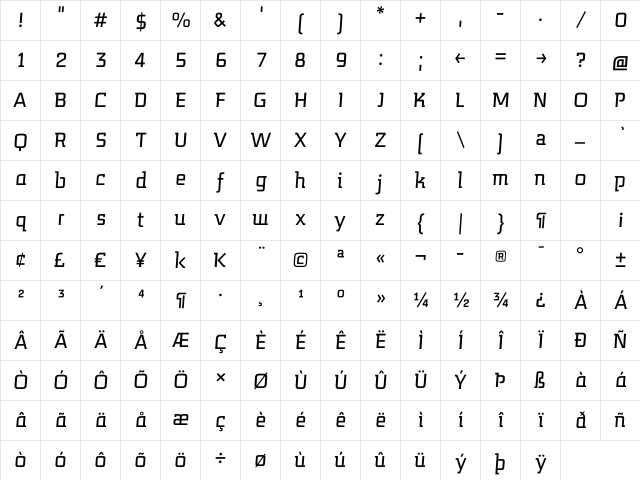
Complete MidnightKernboy Italic glyph index. Displaying only characters natively supported by MidnightKernboy Italic font.
MidnightKernboy is a composed and adaptable typeface that performs quietly and consistently across a wide range of design contexts. The slanted form adds forward momentum and visual energy.